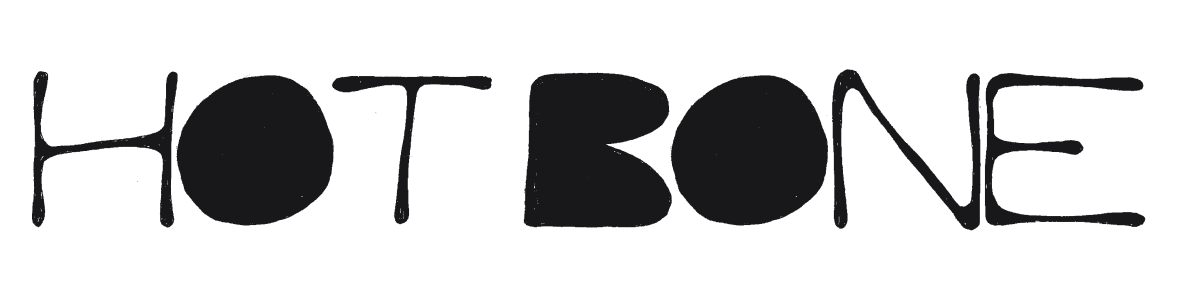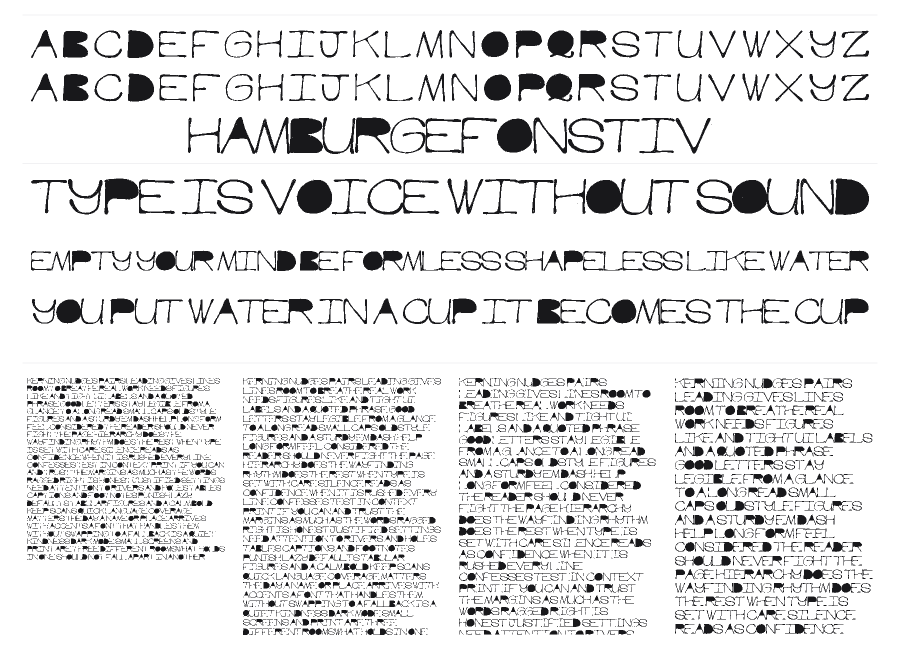
Hot Bone
Hot Bone is an eccentric display sans with wildly inconsistent letter widths and weights, where some characters collapse into dense black blobs and others stretch open and skeletal. That deliberate inconsistency gives it the raw energy of hand-painted signage or chalk lettering. Created in collaboration with Ghost Sign Studios in Portland, Oregon, it carries a distinctly indie, handcrafted spirit.